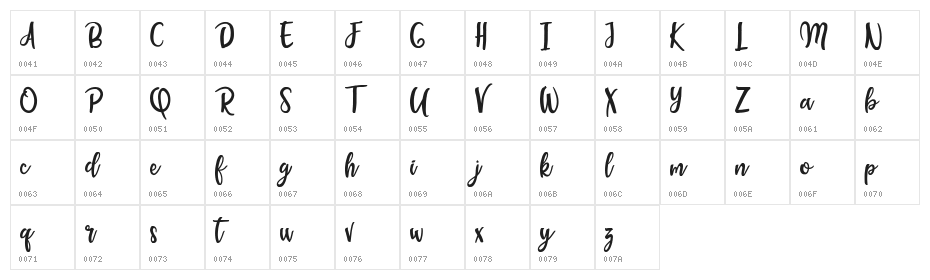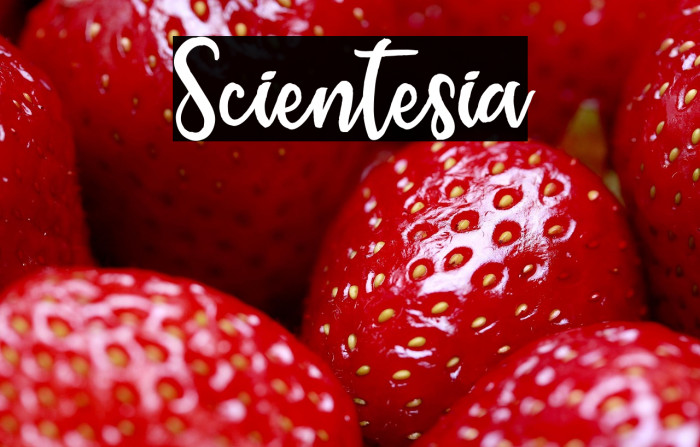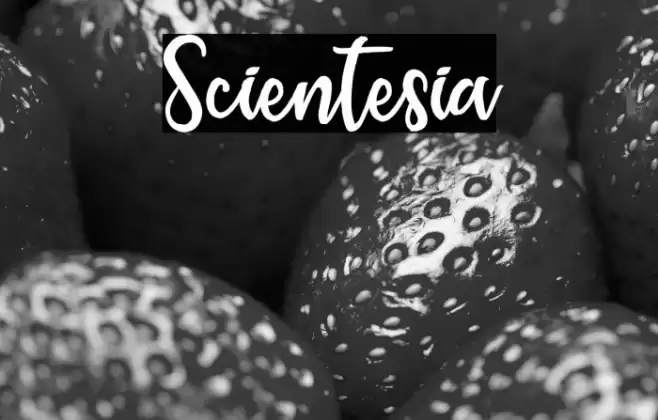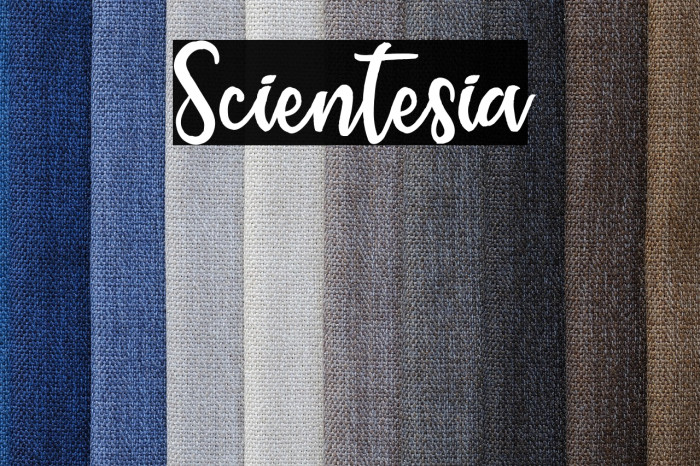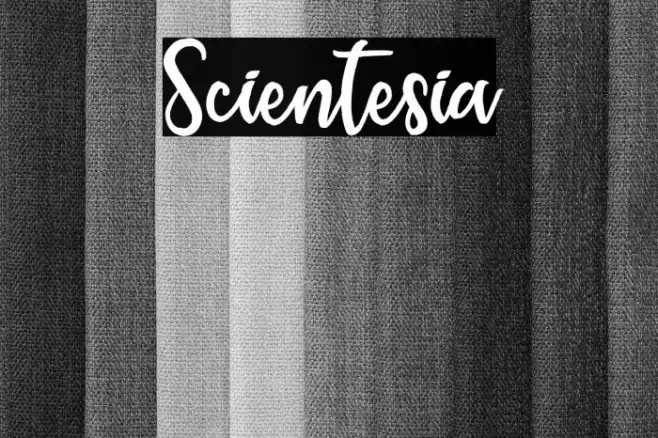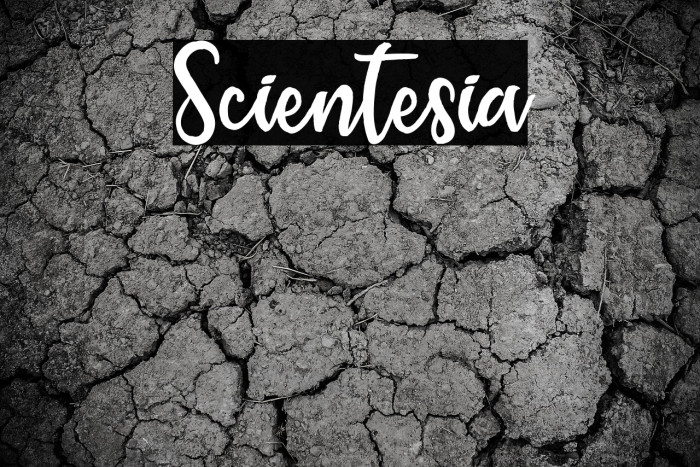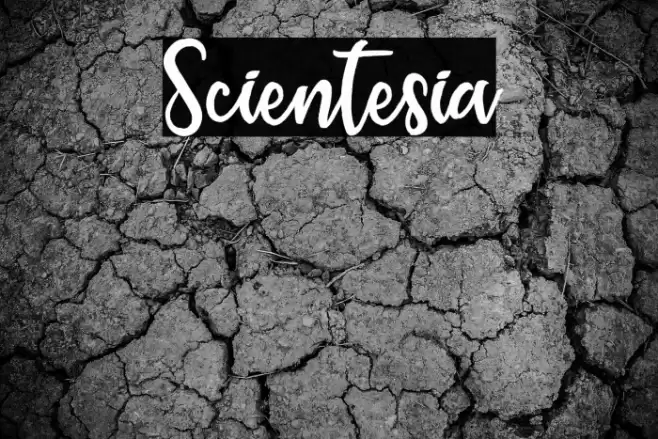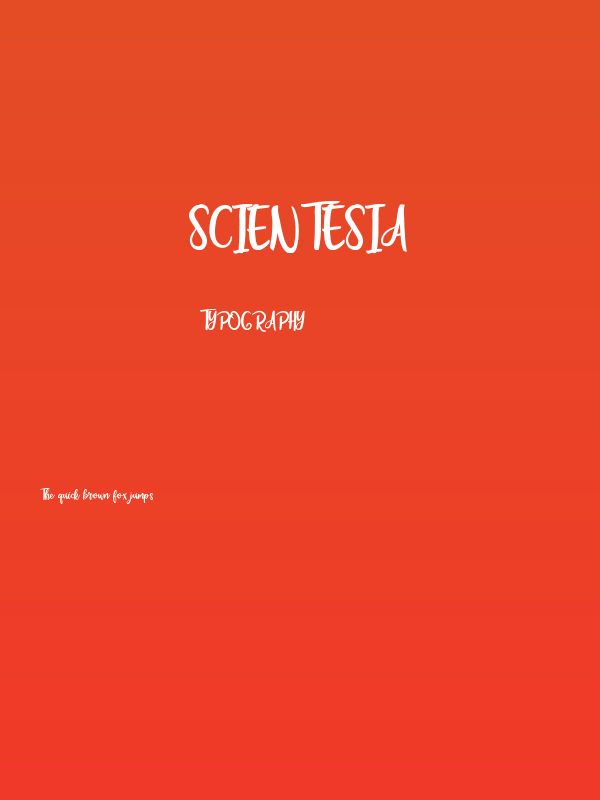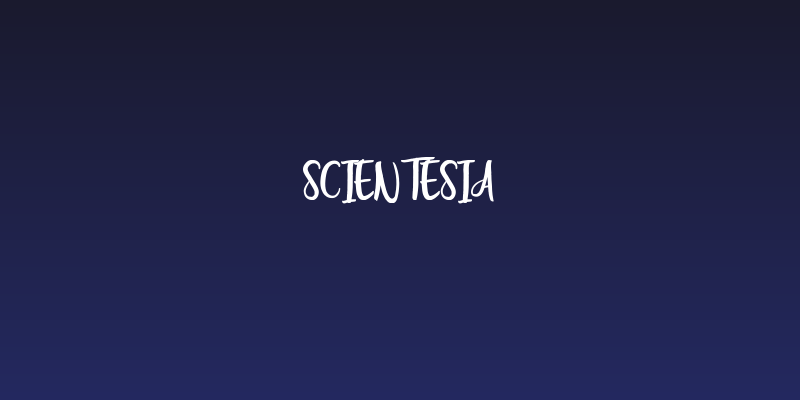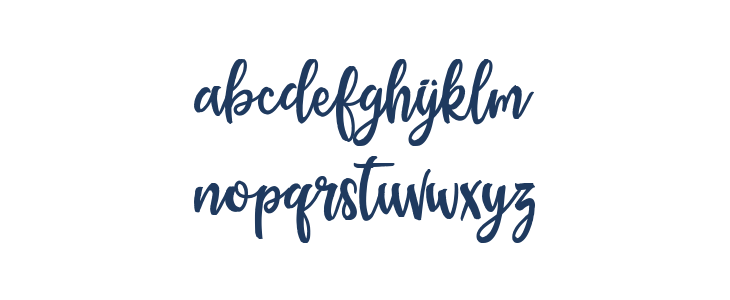
Scientesia Font
Scientesia Description
This font features a dynamic and expressive handwritten style, characterized by its fluid and flowing letterforms. The strokes are bold and confident, with a slight slant that adds a sense of movement and energy. The uppercase letters are tall and commanding, while the lowercase letters maintain a consistent rhythm and balance. The font's playful nature is enhanced by its varying stroke widths, which create a lively and engaging texture. The overall appearance is both artistic and approachable, making it suitable for a variety of creative projects.